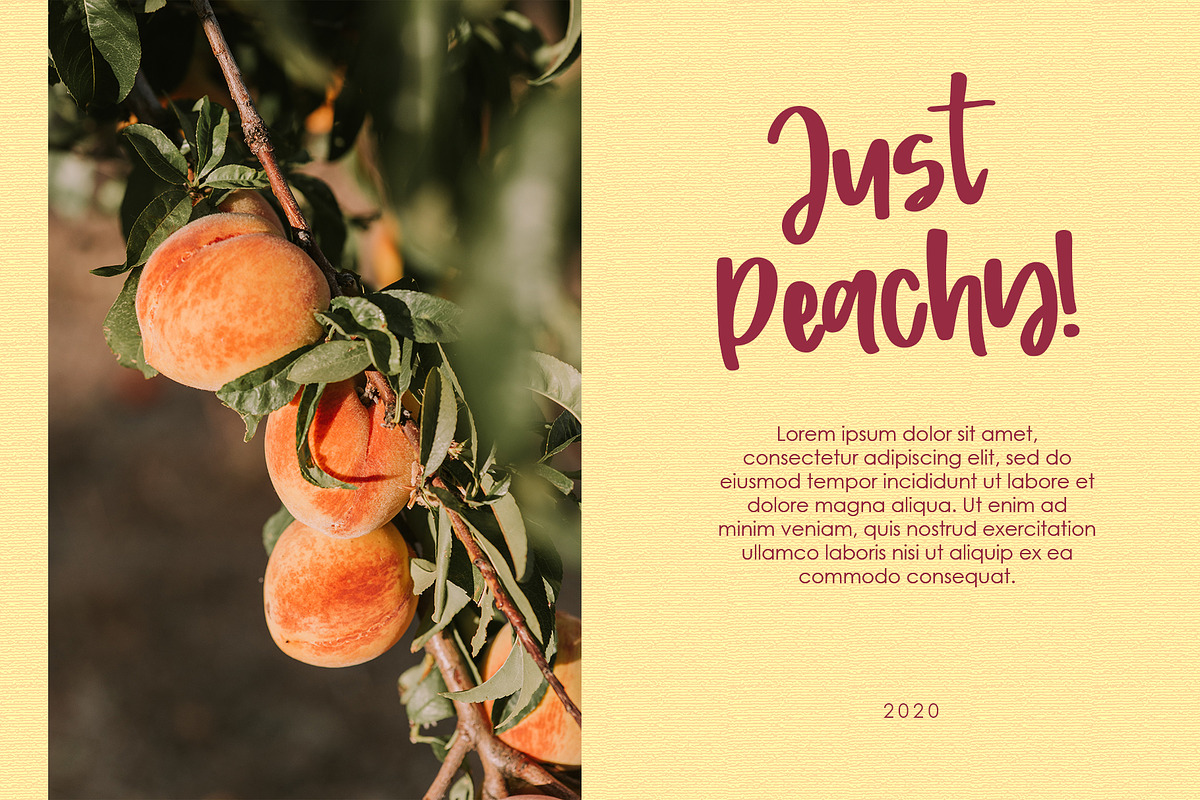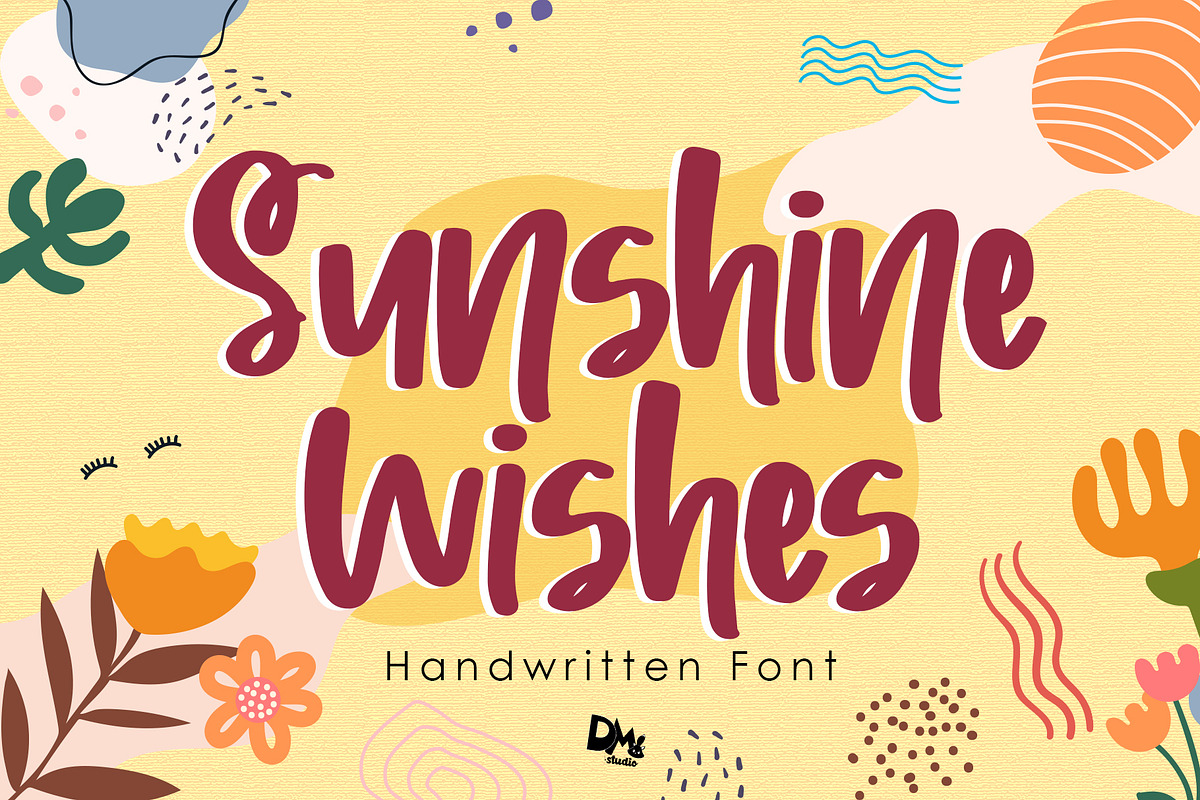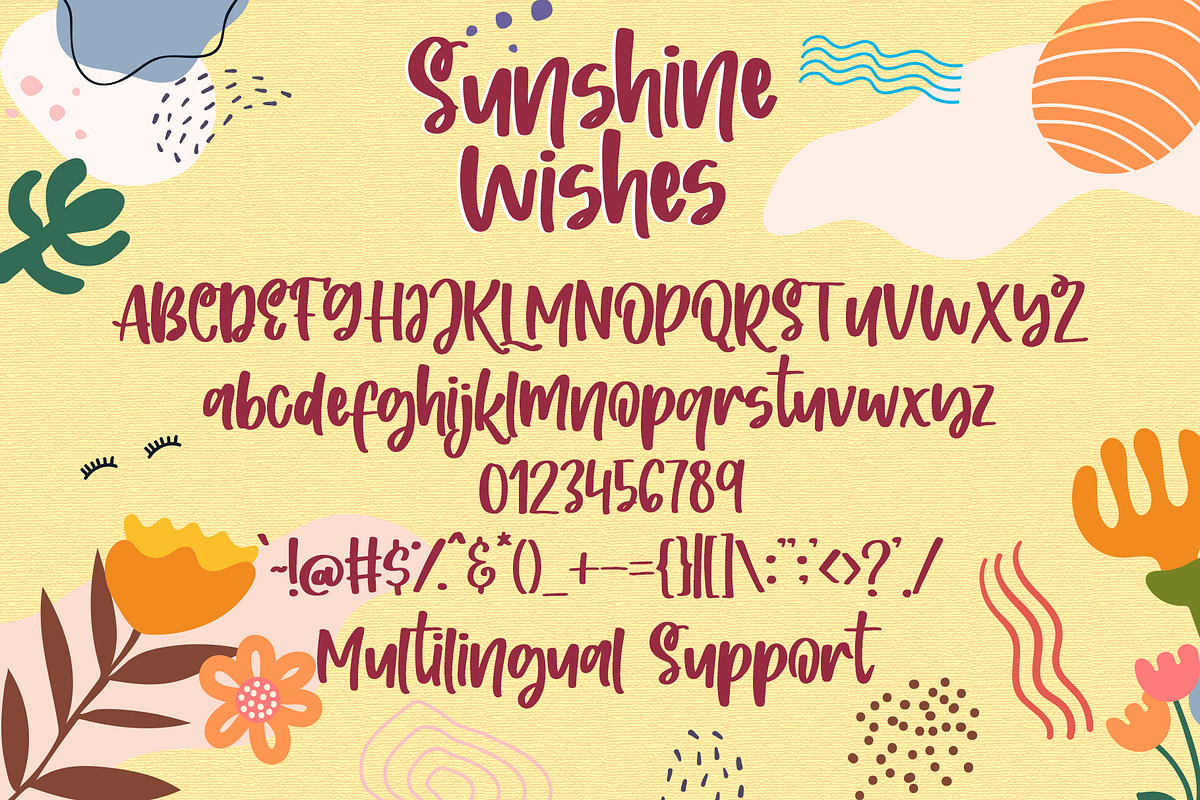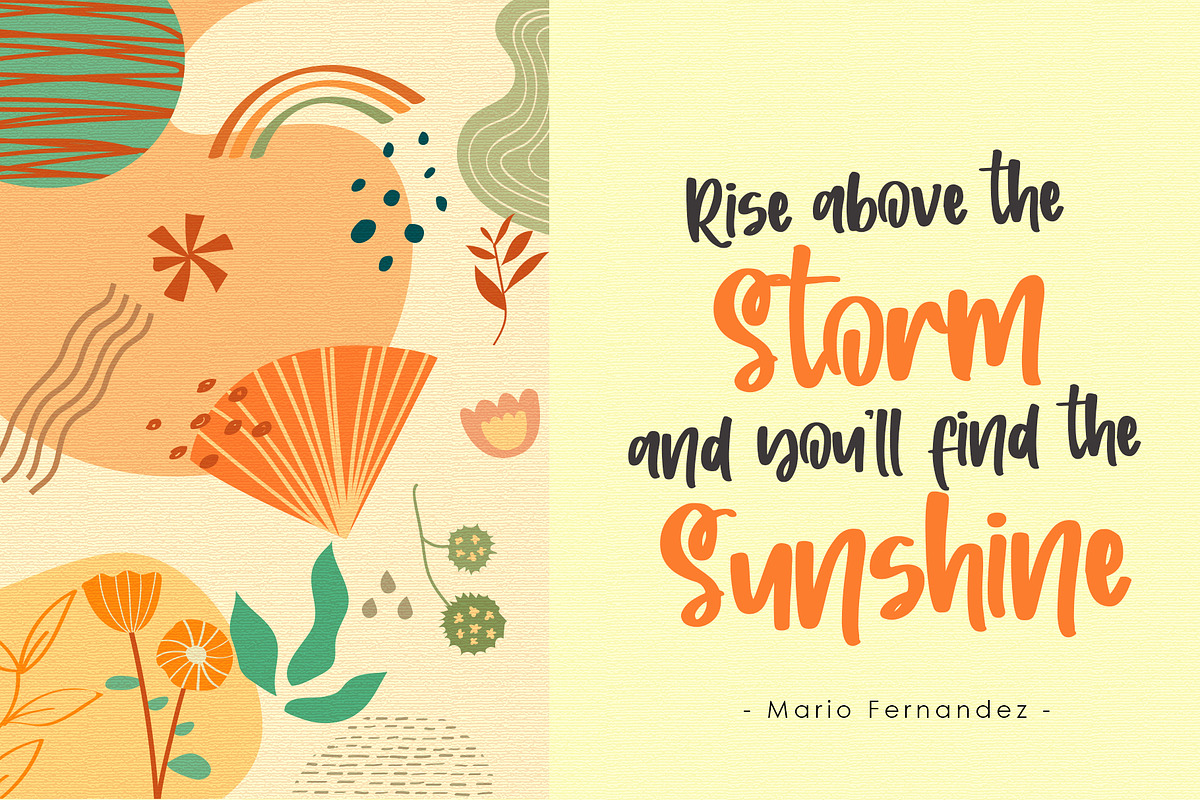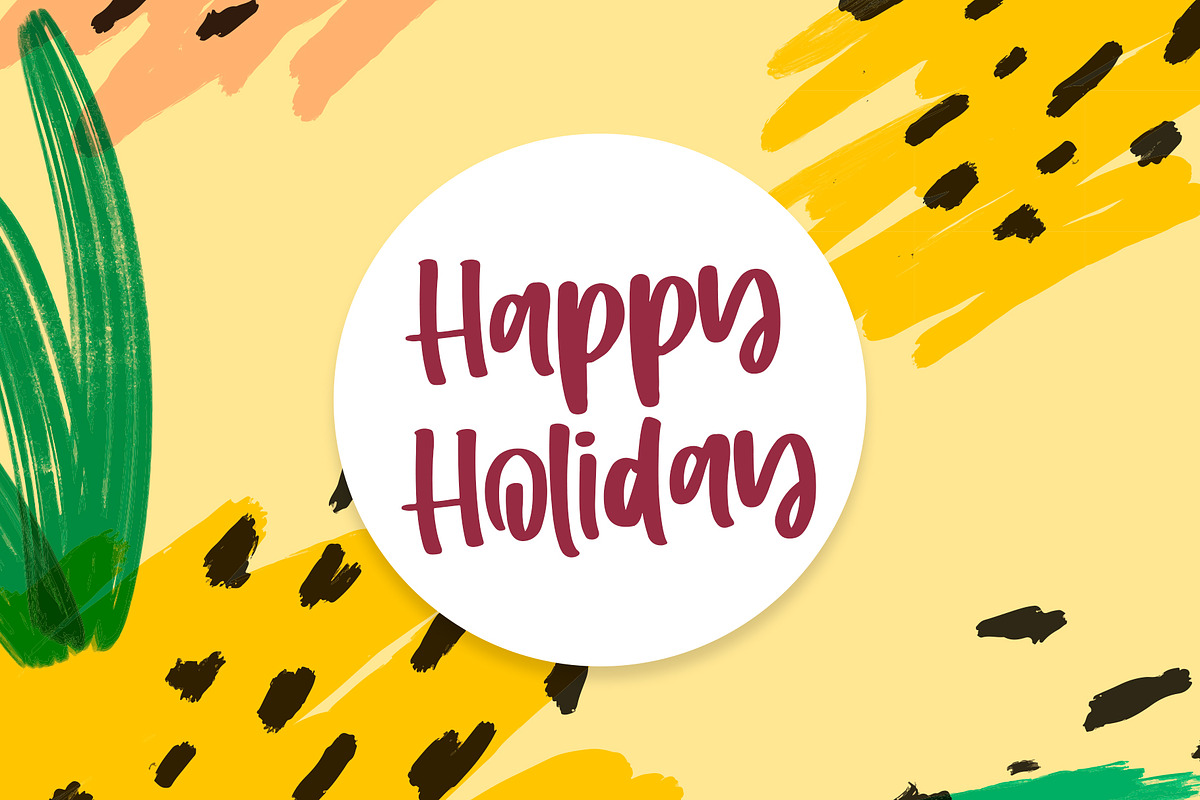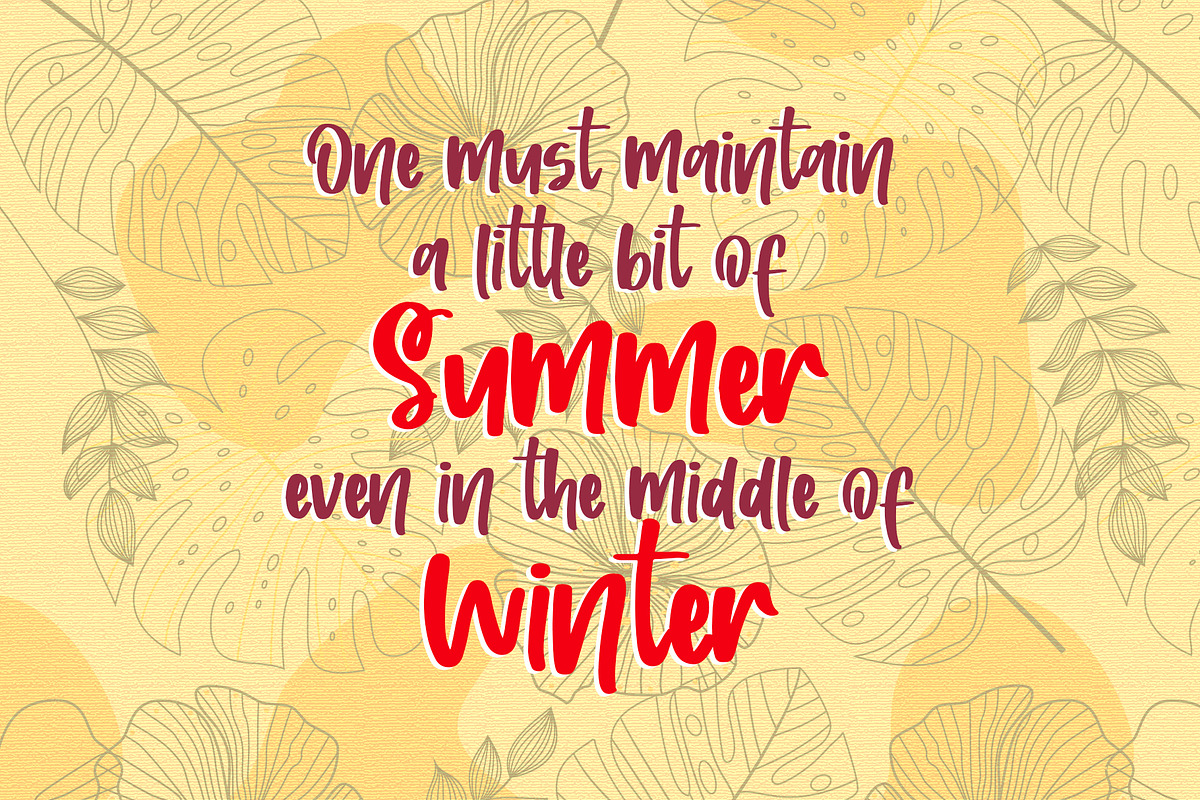
Sunshine Wishes - Handwritten Font
The warm and adorable handwritten, you'll fall in love with this font!
Why Sunshine Wishes - Handwritten Font is worth a look